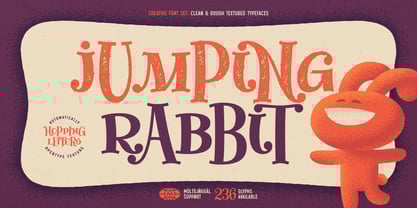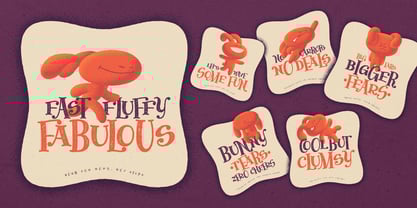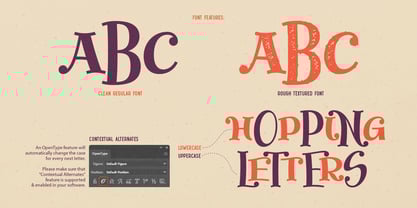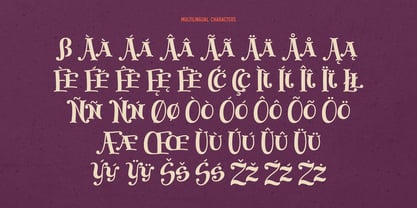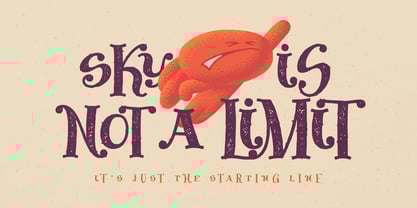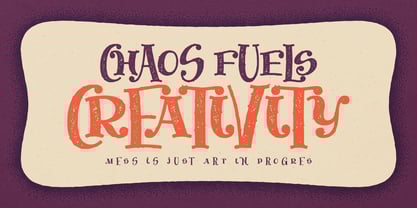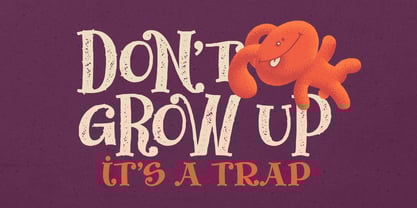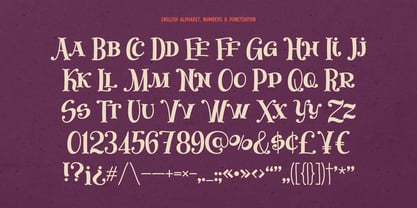
Jumping Rabbit
by Gleb Guralnyk
Hi! Meet Jumping Rabbit — a funny font set with playful, hopping letters in a cartoon style. It brings a cheerful, childlike vibe and works perfectly for a variety of text compositions, adding originality and creativity to your designs.
An OpenType feature will automatically change the case for every next letter. Please make sure that "Contextual Alternates" feature is supported & enabled in your software.
The Jumping Rabbit set includes two fonts: Clean Regular and Textured Rough. Each font contains 236 glyphs and supports multiple languages — check the screenshot to view the full character set!
Designers: Gleb Guralnyk
Foundry: Gleb Guralnyk
A lot of my fonts inherits vintage graphic styles but nevertheless I don't like to stick to one theme for a long time. That's why I'm trying to create fonts in different styles and from different eras, from old gothic calligraphic to modern handwritten scripts, from medieval antique to minimalist sans-serif typefaces. It's always interesting to design something new, and expand my skills in novel font design directions.